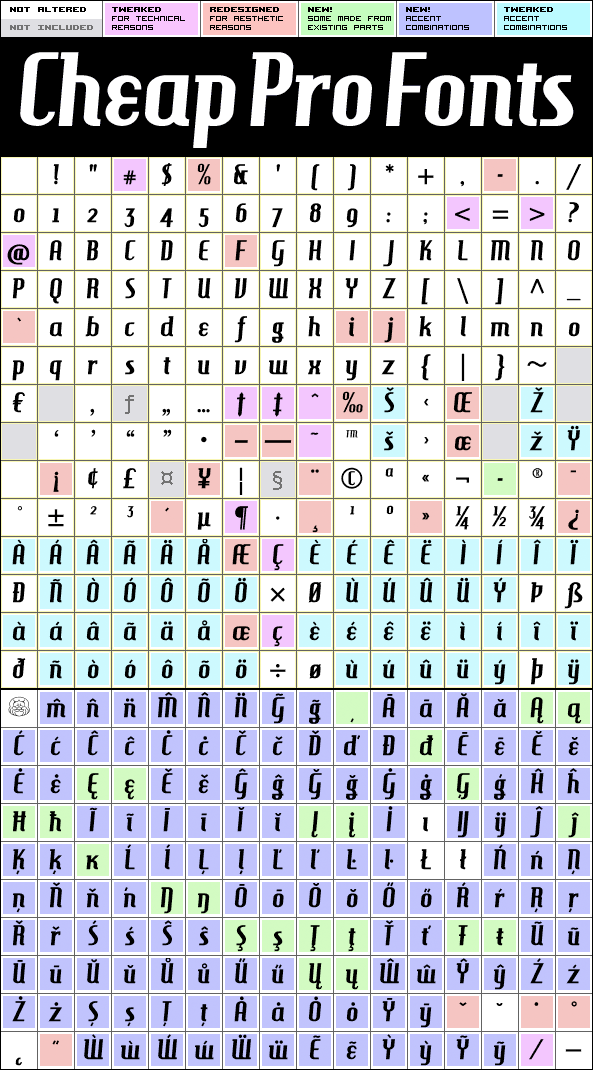
A stylish retro script where I have completely redone the spacing to make the text look more even. All of the diacritics have been redone, too - and the character set expanded in our usual fashion. So now this little gem from Nick Curtis is ready for the big time! :) Nick Curtis says: "This font is basically a design exercise, influenced by a number of contemporary fonts, but unique in its own way. The gentle, fluid motion reminded me of diner lettering from the 30s and 40s, hence the name."
Hamburger Heaven NF Pro is a professionally reworked font that contains an extended character set for setting text in 65 languages requiring more than the basic A-Z!